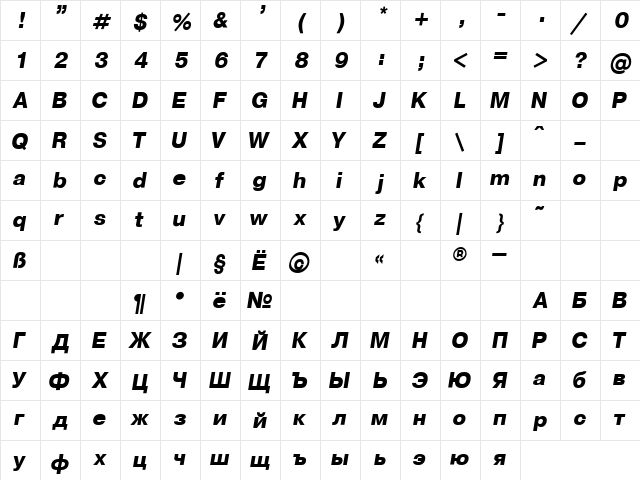
Geneva Bold-Italic
Design Context for Geneva Typeface
Geneva offers clean, dependable letterforms without strong stylistic allegiance, making it a practical choice for designers who need flexibility. Its italic angle brings a sense of urgency and motion to the letterforms. The heavy weight commands attention and anchors typographic hierarchies.
Pro Tip: Try Geneva for annotation and caption copy alongside an upright companion — the contrast in angle creates a dynamic but ordered typographic system.